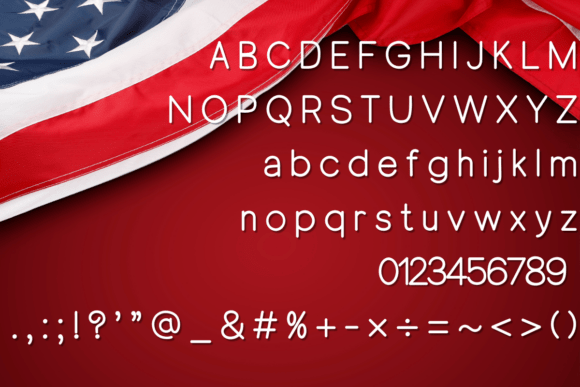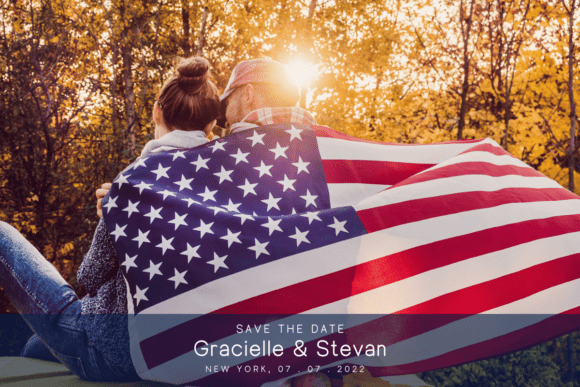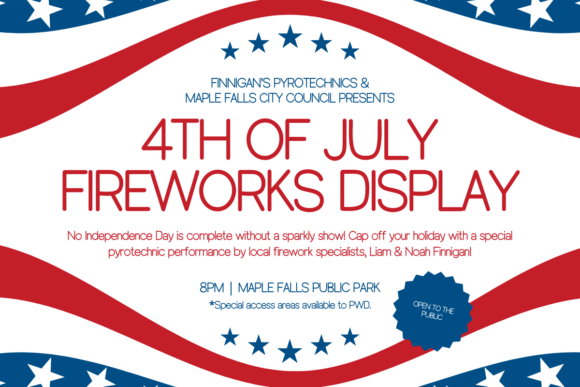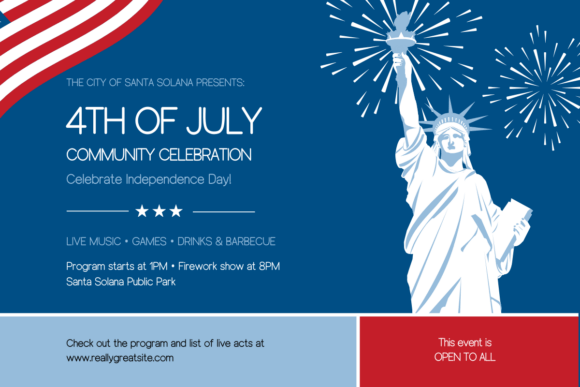
Celebrate Independence Day with the 4th of July Font
Are you looking for a font that’s perfect for creating festive designs for the 4th of July? Look no further than the 4th of July Font! This sans serif font is a versatile and fun addition to any design project. In this article, we’ll explore the features and uses of the 4th of July Font, and provide you with inspiration for using it in your designs.
What is the 4th of July Font?
The 4th of July Font is a sans serif font that’s specifically designed to capture the spirit of Independence Day. Its clean and simple lines make it easy to read and use in a variety of design projects. The font is perfect for creating eye-catching headlines, titles, and body text that’s sure to grab attention.
Features of the 4th of July Font
So, what makes the 4th of July Font so special? Here are some of its key features:
- Sans serif font : The 4th of July Font is a sans serif font, which means it doesn’t have any decorative lines or flourishes at the ends of the letters. This makes it a clean and modern font that’s perfect for a variety of design projects.
- Easy to read : The font is designed to be easy to read, even at small sizes. This makes it perfect for creating body text, headings, and titles.
- Versatile : The 4th of July Font is a versatile font that can be used in a wide range of design projects, from greeting cards and invitations to banners, mugs, and more.
Uses for the 4th of July Font
So, what can you use the 4th of July Font for? The possibilities are endless! Here are some ideas to get you started:
- Taking notes : The 4th of July Font is perfect for taking notes, whether you’re jotting down ideas, making a to-do list, or keeping a journal.
- Writing a diary : The font is also great for writing a diary or journal. Its clean lines and simple design make it easy to read and write.
- Making greeting cards : The 4th of July Font is a great choice for making greeting cards, whether you’re creating a card for a friend, family member, or coworker.
- Banners and signs : The font is perfect for creating eye-catching banners and signs for parties, events, and more.
- Content creation : Use the 4th of July Font to create engaging content for your blog, social media, or website.
- Mugs and water bottles : The font is a great choice for creating custom mugs and water bottles for parties, gifts, or everyday use.
- Cards and invitations : The 4th of July Font is perfect for creating custom cards and invitations for parties, events, and more.
- Shirts and apparel : Use the font to create custom shirts and apparel for parties, events, or everyday wear.
- Stationery and paper goods : The font is a great choice for creating custom stationery, paper goods, and more.
- Social media posts : Use the 4th of July Font to create eye-catching social media posts for Independence Day and other celebrations.
Tips for Using the 4th of July Font
Here are some tips for using the 4th of July Font in your designs:
- Experiment with colors : The 4th of July Font looks great in a variety of colors, including red, white, and blue. Experiment with different colors to find the perfect combination for your design.
- Add graphics and images : The font is perfect for pairing with graphics and images. Try adding patriotic graphics, such as flags, fireworks, or eagles, to your design.
- Use different font sizes : The 4th of July Font looks great in a variety of font sizes. Experiment with different sizes to create visual interest and hierarchy in your design.
The 4th of July Font is a versatile and fun font that’s perfect for creating festive designs for Independence Day and beyond. Its clean lines, simple design, and ease of use make it a great choice for designers and crafters of all levels. Whether you’re creating greeting cards, banners, or social media posts, the 4th of July Font is sure to add a touch of patriotism and style to your designs.